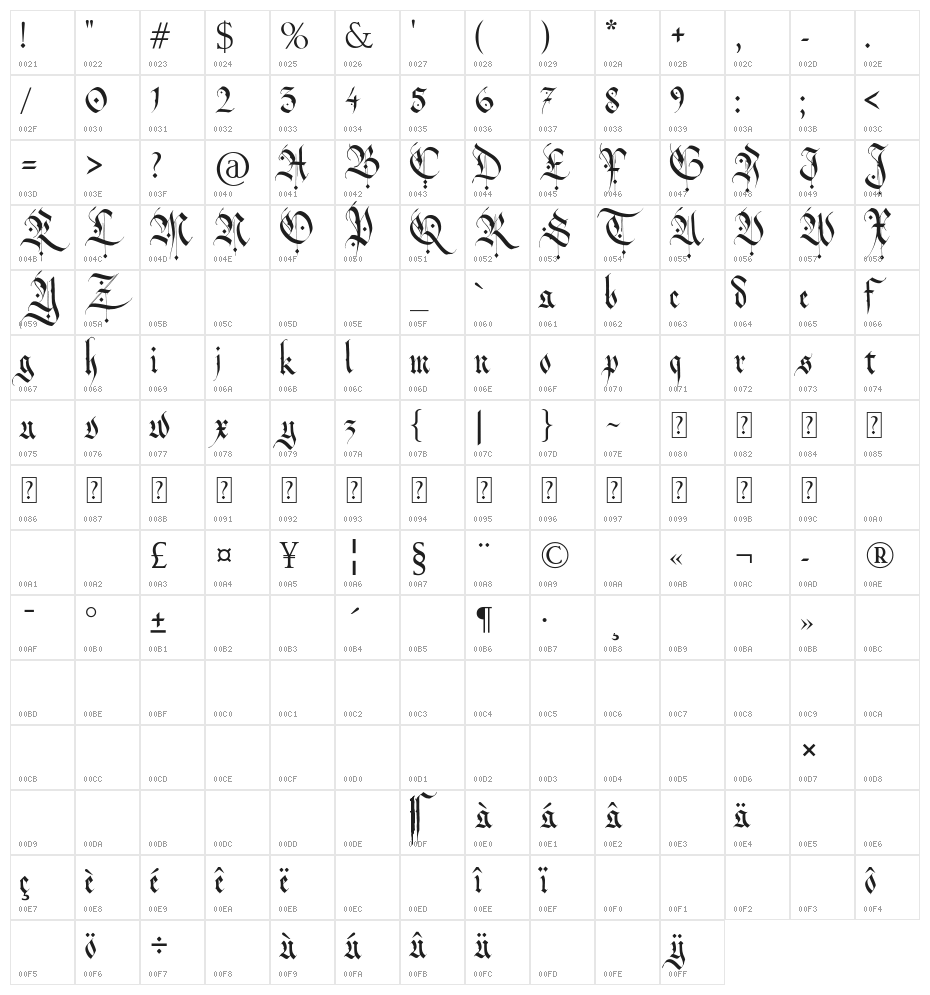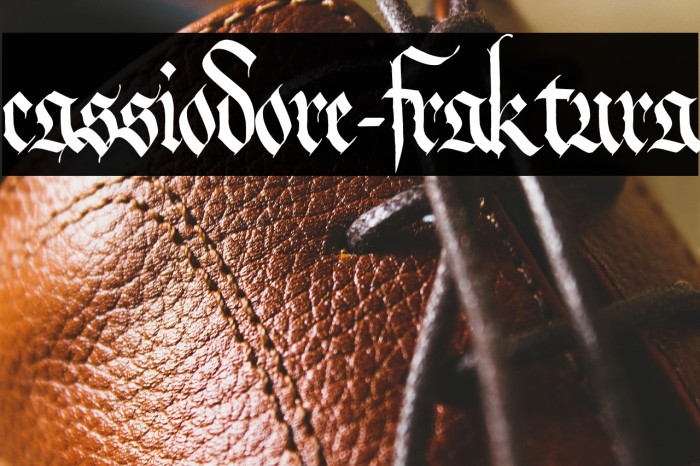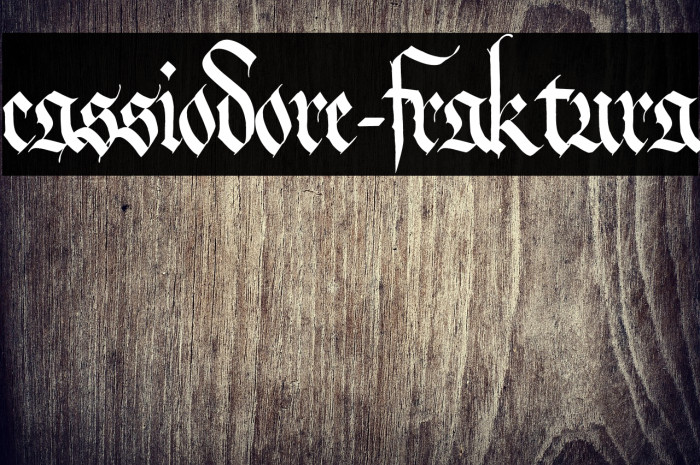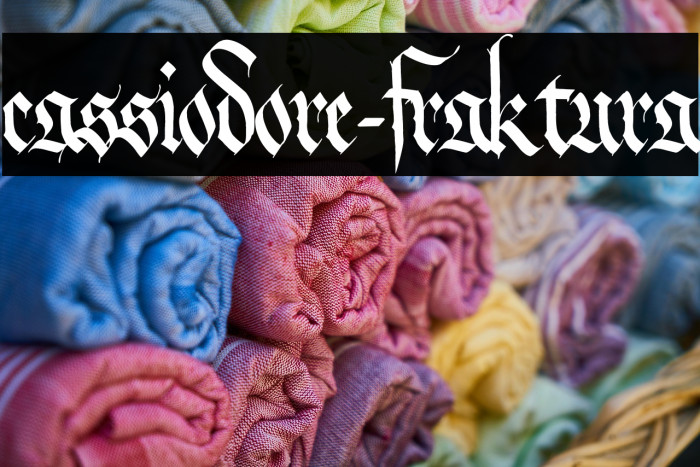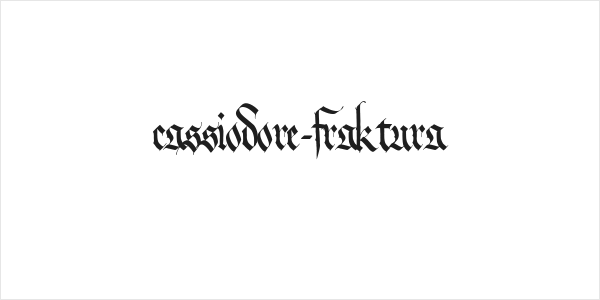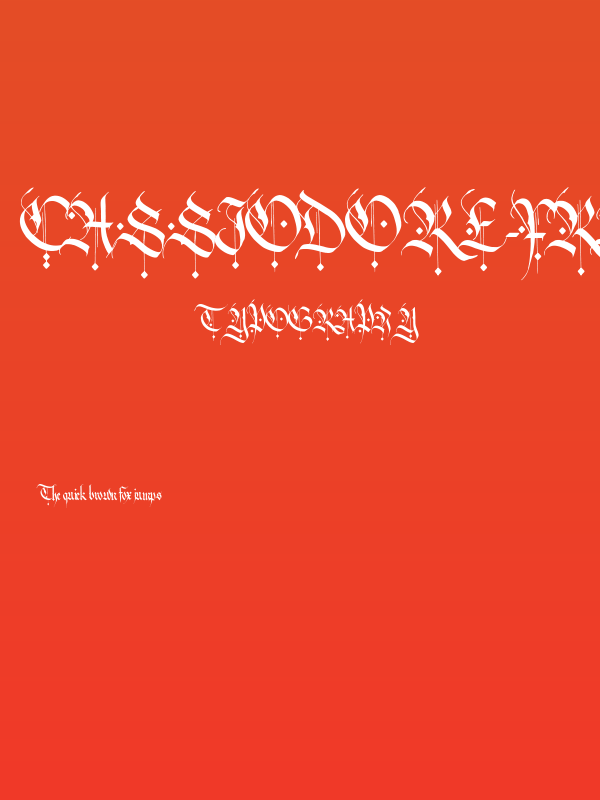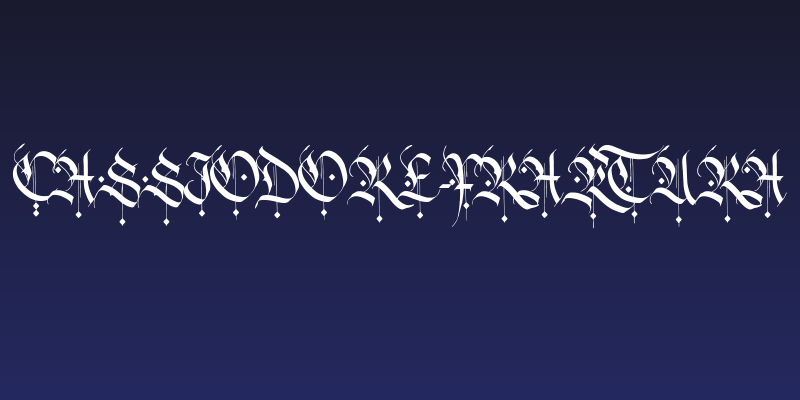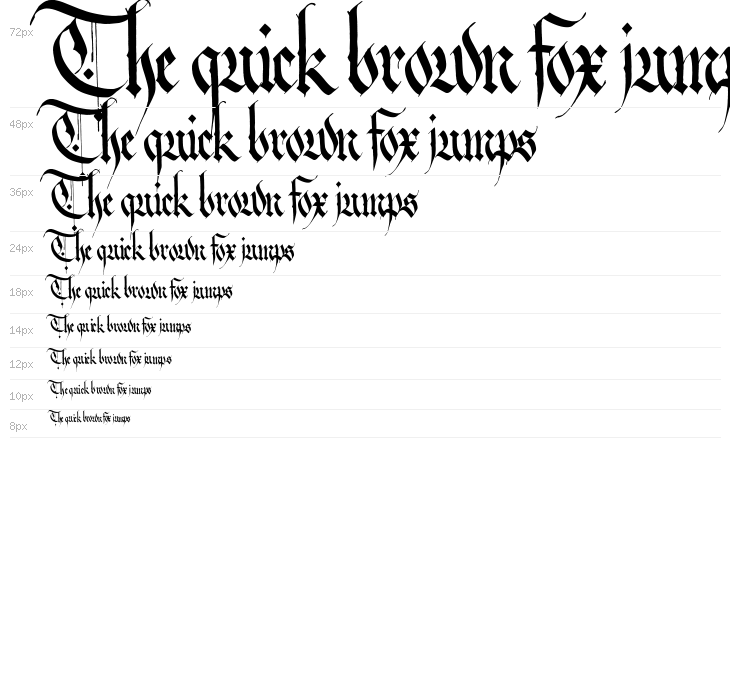
cassiodore-fraktura Font
cassiodore-fraktura Description
This font embodies the traditional elegance and intricate detailing of classic blackletter styles. The characters are characterized by sharp, angular lines and dramatic flourishes, reminiscent of medieval manuscripts. Each letter is adorned with pointed serifs and elaborate strokes, creating a sense of grandeur and historical depth. The uppercase letters are particularly ornate, with sweeping curves and pointed terminals, while the lowercase letters maintain a consistent rhythm and flow. The numerals and special characters are equally stylized, offering a cohesive look across the entire typeface.
| Proposed Projects | Ideal for historical documents, certificates, book covers, and branding that requires a medieval or gothic aesthetic. |